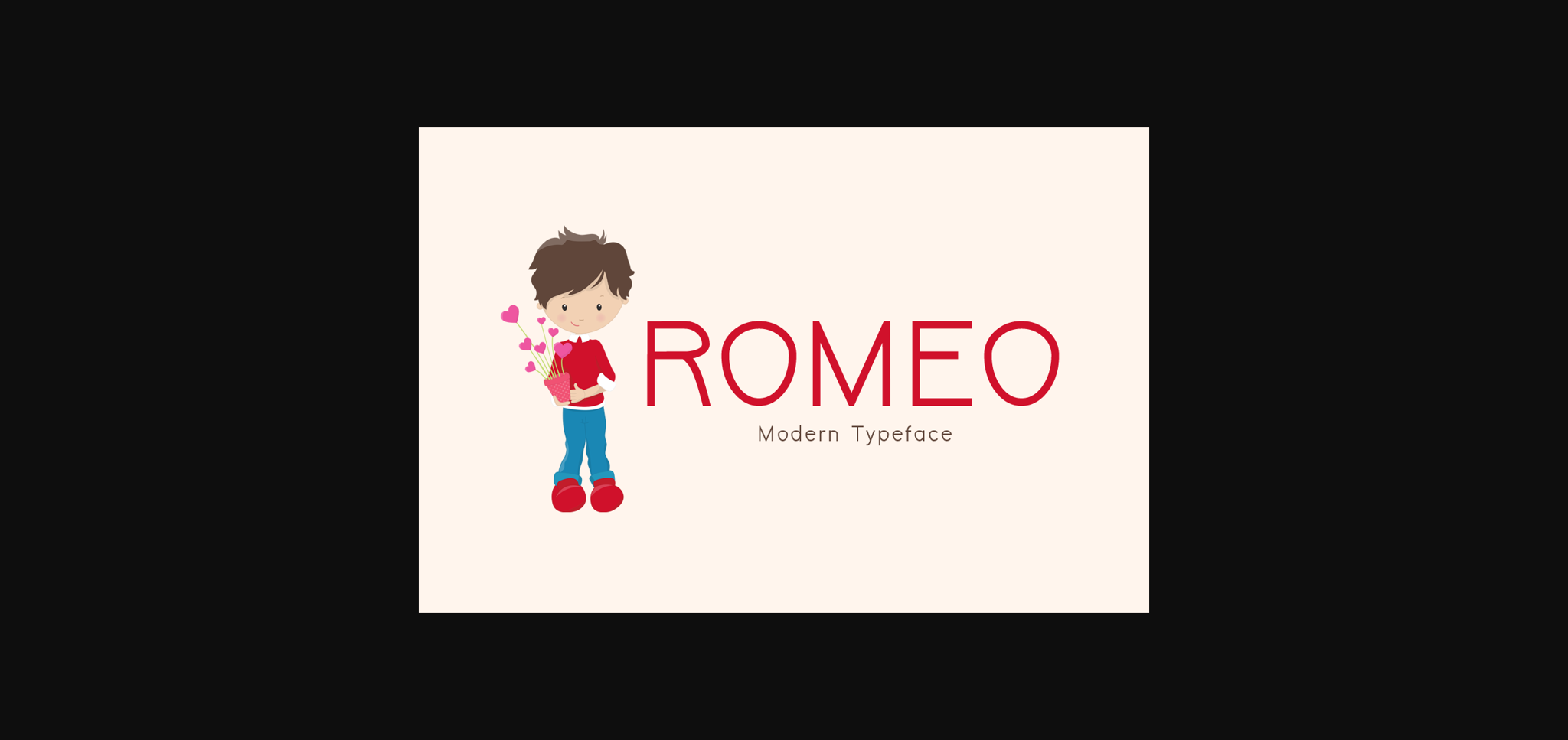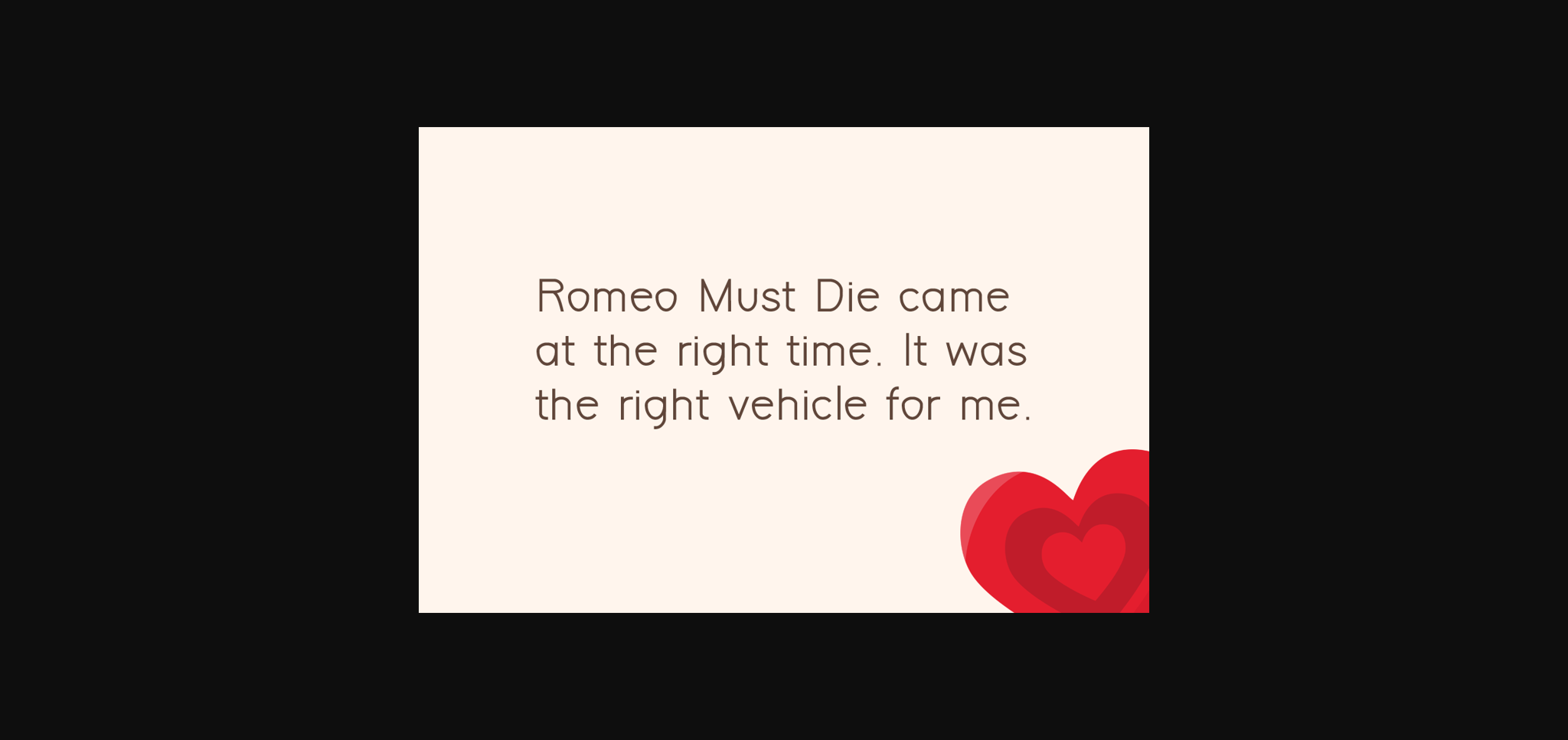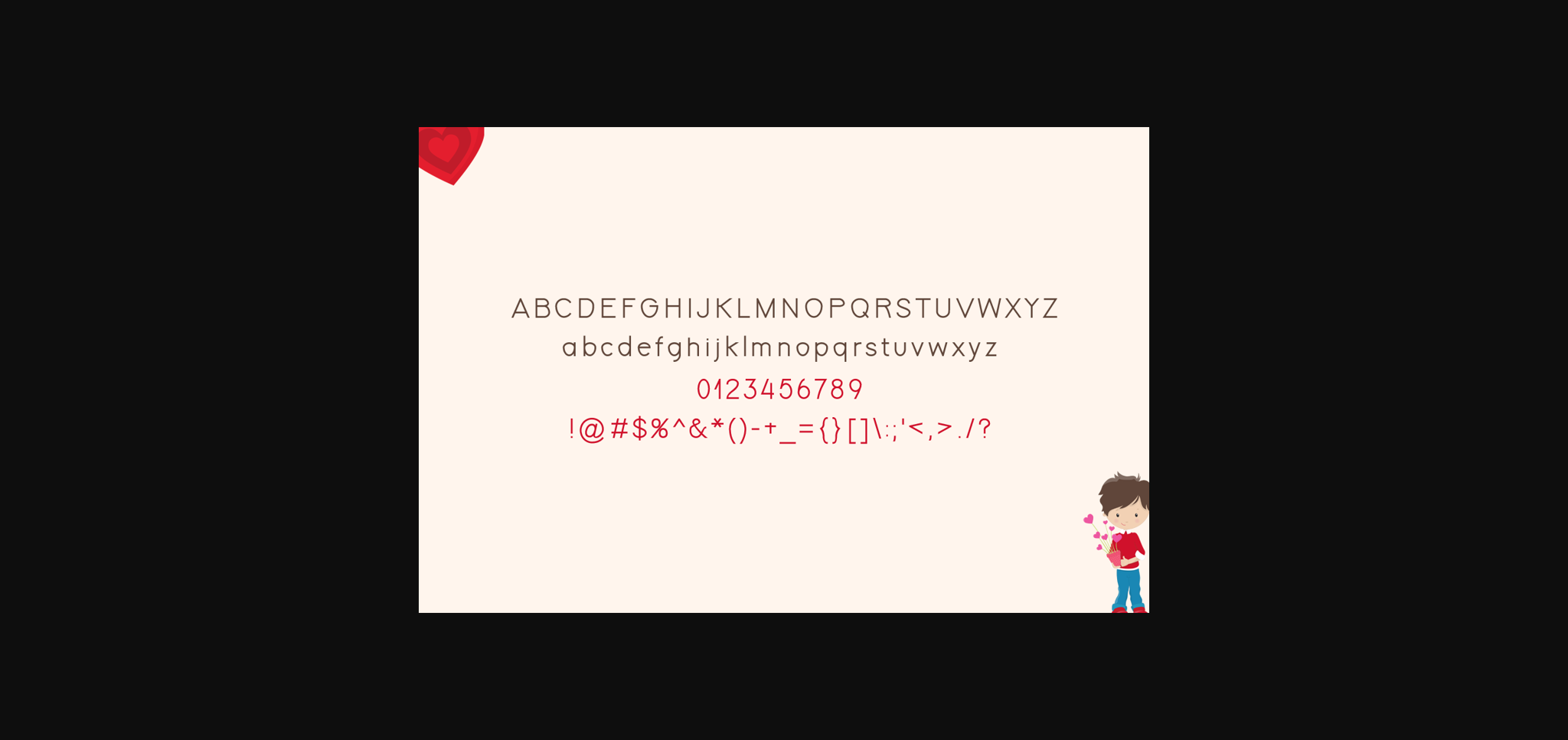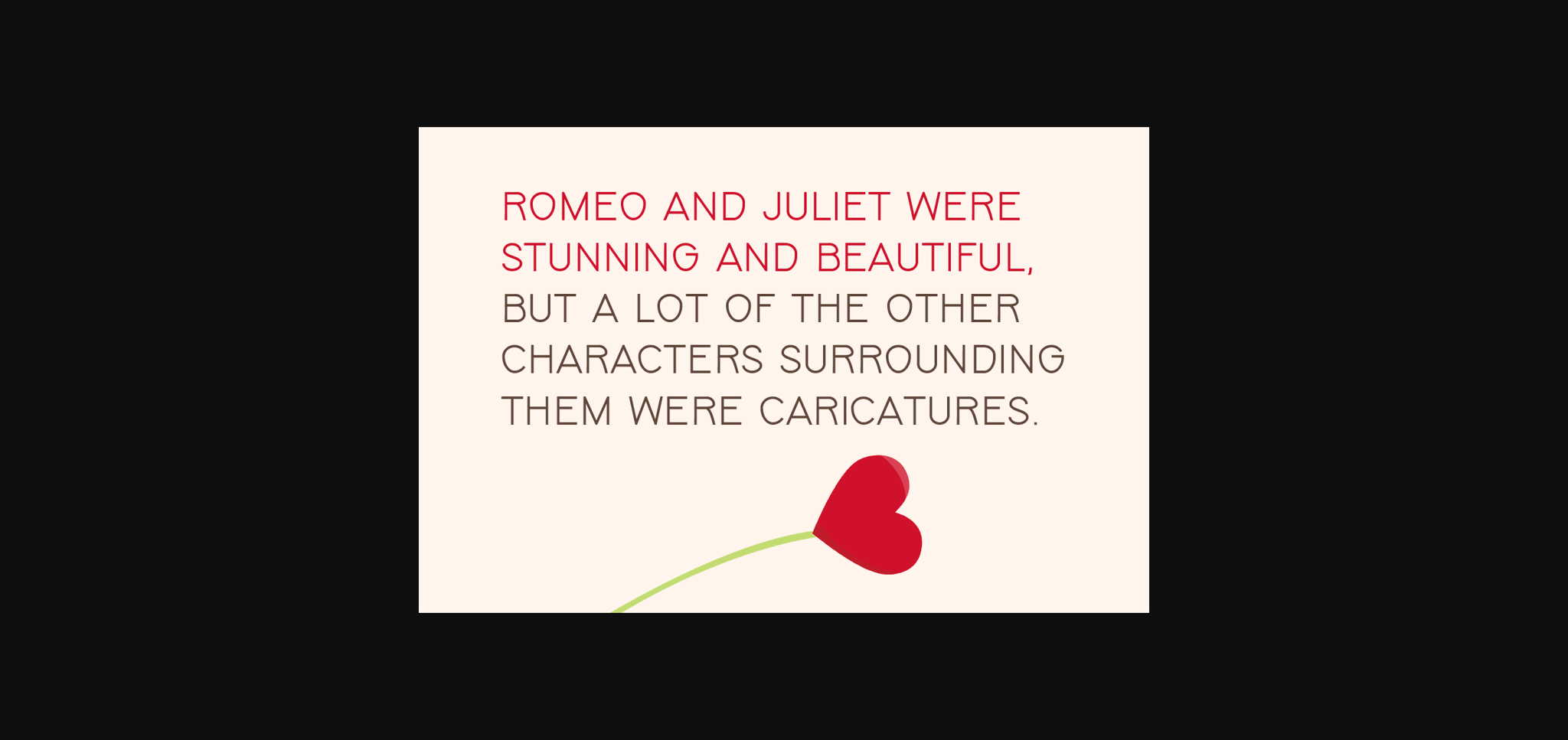
HomeSans Serif FontsRomeo Font Sans Serif Fonts Romeo Font FacebookXPinterestWhatsApp 1 of 6 ... Romeo Font Poster 2... Romeo Font Poster 3... Romeo Font Poster 4... Romeo Font Poster 5... Romeo Font Poster 6... About Romeo Font Oh Romeo! This friendly and relaxed sans serif font has a unique feel that makes it perfect for logos, stationery, social media posts and much more! DOWNLOAD NOW People also explored Ego Sunset Font Crawling Font Magical Font Night Woon Font Black Light Font Gimme Love Font Able Lingo BSL 5 Font Summer Coffee Font 304 0 TagsRomeoRomeo Font Previous articleRocky Ryder FontNext articleReuleut Font LEAVE A REPLY Cancel reply Comment: Please enter your comment! Name:* Please enter your name here Email:* You have entered an incorrect email address! Please enter your email address here Website: Save my name, email, and website in this browser for the next time I comment. Personal Use Free The Brighton Personal Use Free Read more about this font Eniem Personal Use Free Read more about this font Mariyam Personal Use Free Read more about this font Splatter Splash Personal Use Free Read more about this font BLOG Transform Your Website: Elevate Your Typography with 7 Best Web Font Generators Are you ready to transform your website's typography from ordinary to extraordinary? Great! Today, we're diving into the world of web font generators, which... Top 7 Google Fonts Alternatives for Faster and Privacy-Friendly Web Design (2025) Best Fonts for T-Shirt Design – Top 2025 Picks Elegant Wedding Invitation Fonts – Handwritten & Script Fonts